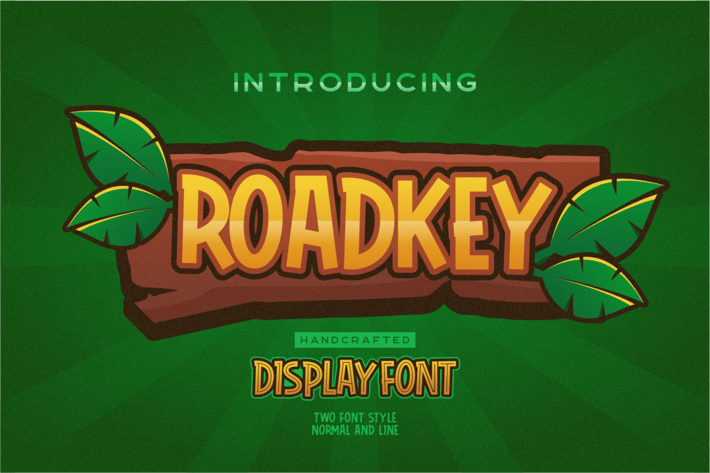
Roadkey Kids Font
Holismjd
Roadkey is a kid’s font with a simple style but has a modern impression to your project. This font includes two styles namely normal and line.